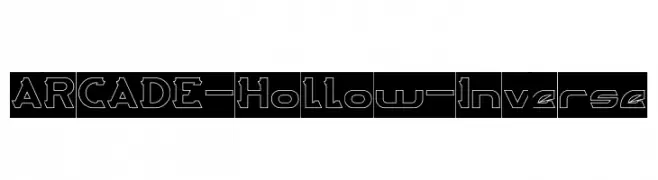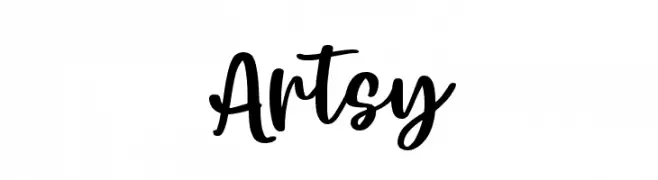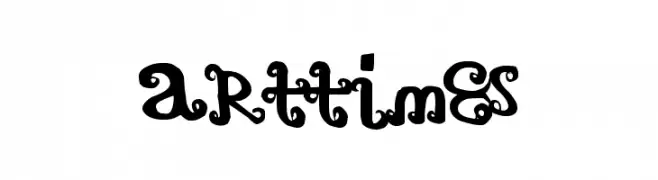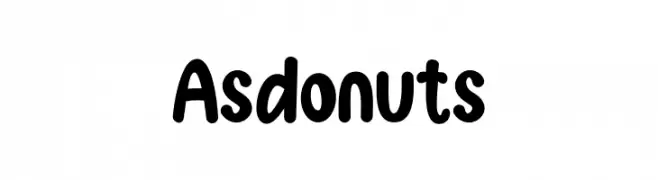
A bold, hollow, and futuristic font with a geometric and digital style.
A bold, retro arcade-inspired font with geometric and angular characters.
A bold, geometric font with a futuristic and edgy design.
A playful and whimsical font with decorative curls and swirls.
A bold, cursive script font with flowing, connected letterforms.
An artistic, angular font with a hand-drawn, edgy style.
A versatile set of arrow designs with varied styles and directions.
A playful, handwritten font with smooth, flowing curves and a casual elegance.
A whimsical, decorative font with bold, rounded letterforms and playful embellishments.
A bold, rounded font with a playful and whimsical style.